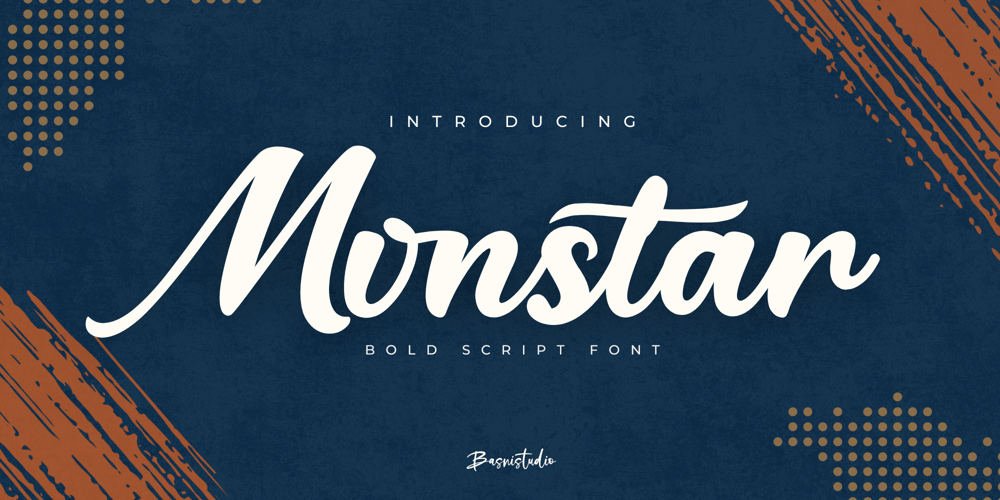
Monstar
Monstar font
Monstar Font Family was designed by Bery Arisandi and published by Basnistudio. Monstar contains 1 styles and family package options. Introducing Monstar Bold Script Font, made by Naturaly Bold Script With Authentic Style.This Font is perfect for an magazine, clothes, quotes, and so much more. This font is PUA encoded, which means you can access all of the glyphs.What’s include: Monstar Bold Script Font ligatures Alternates Multilingual Support ( Support for 90 languages ) If you have any questions please don’t hesitate to contact me. follow my Instagram: @basni.std And check our Site www.Basnistudio.comThank You Very Much